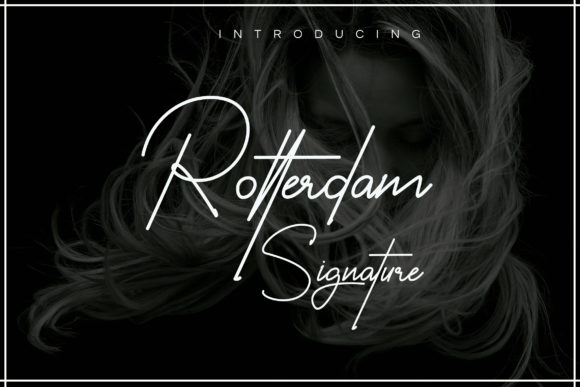
Prepare yourself to be mesmerized by Rotterdam Font, the epitome of elegance and sophistication in the world of handwritten fonts. Created by the ingenious aimcreative1, Rotterdam Font transcends the boundaries of ordinary typography, offering a captivating blend of classic calligraphy and modern flair.
With its graceful strokes and enchanting curves, Rotterdam Font exudes an air of timeless beauty, reminiscent of handwritten letters from a bygone era. Yet, it remains refreshingly contemporary, effortlessly adapting to the demands of modern design aesthetics. This remarkable duality makes Rotterdam Font the perfect choice for a vast array of creative endeavors, from elegant letterheads and eye-catching titles to sophisticated invitations and heartfelt cards.
Immerse yourself in the versatility of Rotterdam Font, a font family that knows no bounds. Its carefully crafted characters dance across the page with effortless grace, lending a touch of sophistication to any project. Whether you're designing a wedding invitation that exudes romance, a business card that commands attention, or a social media post that demands engagement, Rotterdam Font will elevate your words, transforming them into works of art.
Unleash your creativity with Rotterdam Font, a font that sparks inspiration and ignites the imagination. Its boundless charm will captivate your audience, leaving them spellbound by the eloquence of your designs. As you effortlessly glide through your creative projects, you'll discover that Rotterdam Font is not just a tool, but a muse, guiding you towards design brilliance.
Don't settle for ordinary fonts that fade into the background. Embrace the allure of Rotterdam Font, a font that commands attention, captivates hearts, and leaves an everlasting impression. Its timeless elegance and modern appeal will ensure that your creative endeavors stand out from the crowd, leaving a lasting legacy of beauty and sophistication.